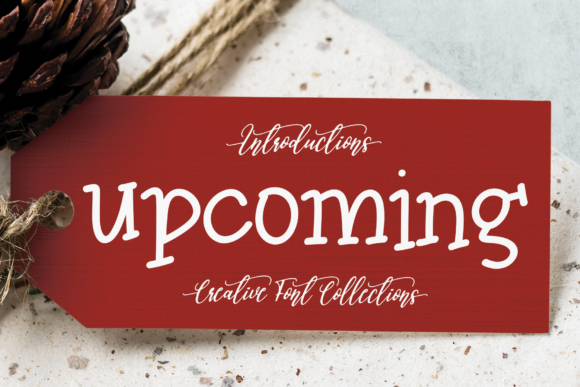
Introducing è©” Font, a charming serif font family that exudes warmth and playfulness. This captivating font, meticulously crafted by StudioGreen.ltd, is designed to bring a touch of whimsy and friendliness to your creative projects. With its inviting curves and distinct serifs, è©” Font is the perfect choice for captivating your audience and creating a lasting impression.
Immerse yourself in the boundless possibilities of è©” Font. Whether you're weaving enchanting stories in a children's book, crafting engaging social media posts, or designing eye-catching marketing materials, this versatile font will effortlessly elevate your creations. Its graceful strokes lend a touch of elegance to logos, branding, and name tags, adding a personal touch to every design.
è©” Font is more than just a font; it's an artistic expression that sparks imagination and ignites creativity. Its playful personality shines through in every character, inviting your audience to embark on a joyful journey of visual delight. From storybooks that come alive to social media posts that captivate, è©” Font is the key to unlocking a world of captivating designs.
Embrace the magic of è©” Font and let your creativity soar. With its user-friendly design and effortless charm, this font is perfect for both seasoned designers and those just starting their creative journey. Its intuitive nature makes it a breeze to use, ensuring a smooth and enjoyable experience with every project.
Don't settle for ordinary fonts that blend into the background. Choose è©” Font, the font that commands attention and leaves a lasting impression. Its captivating presence will elevate your designs to new heights, captivating your audience and leaving them yearning for more.